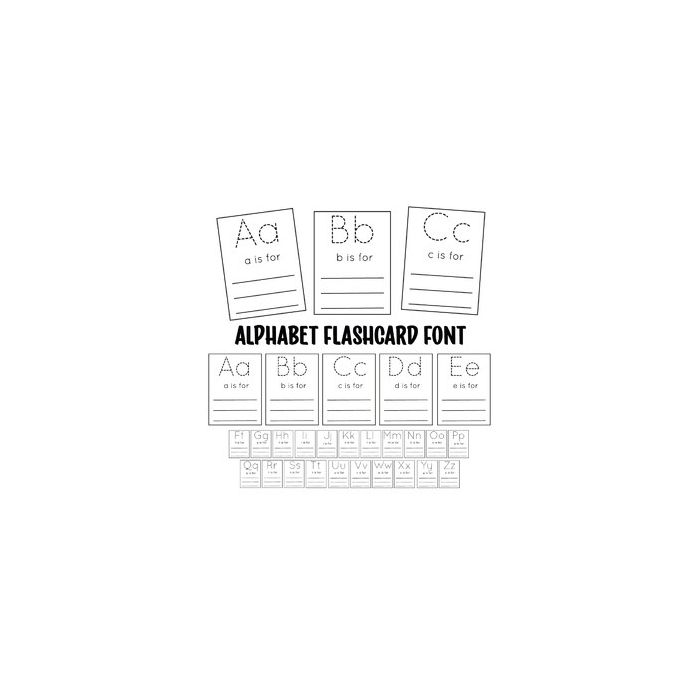
Alphabet Flashcard Font - contains every letter of the alphabet with traceable upper and lowercase letters and the space for a child to wrote 3 things beginning with that letter. A perfect educational activity!
Flashcards are allocated to both upper and lowercase letters (both are exactly the same)